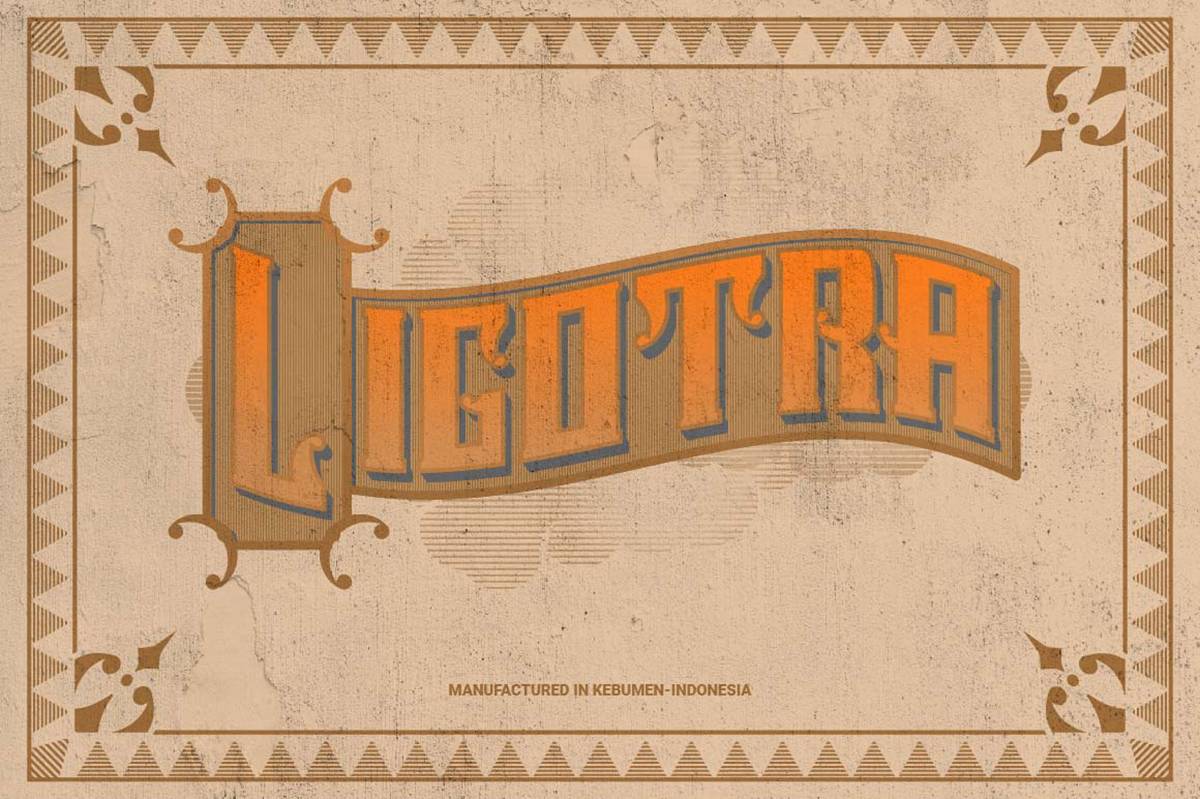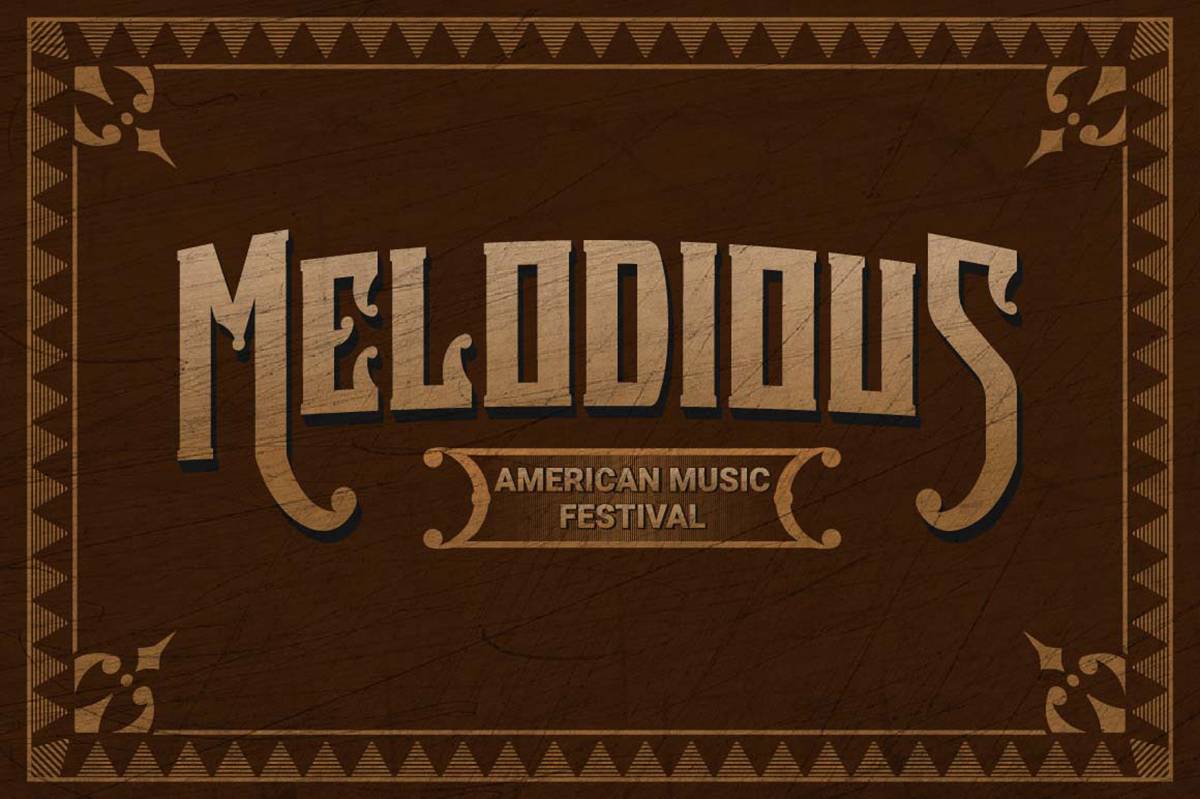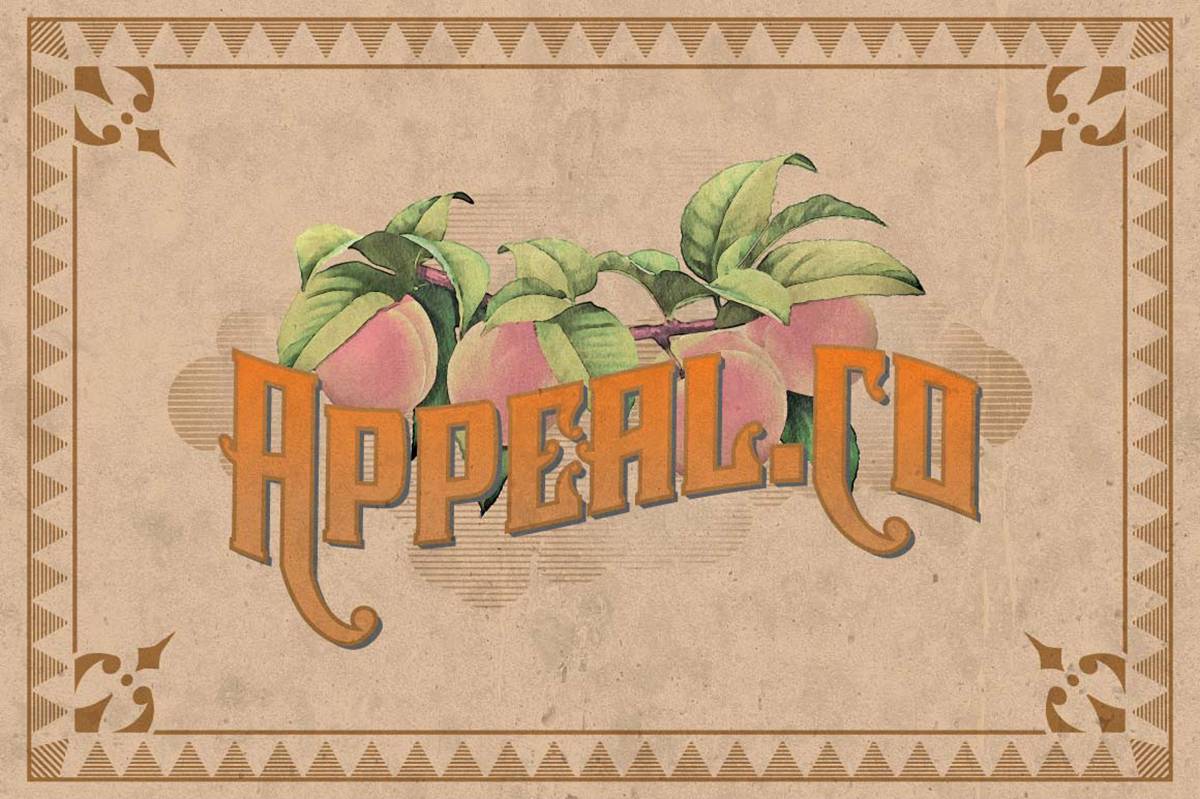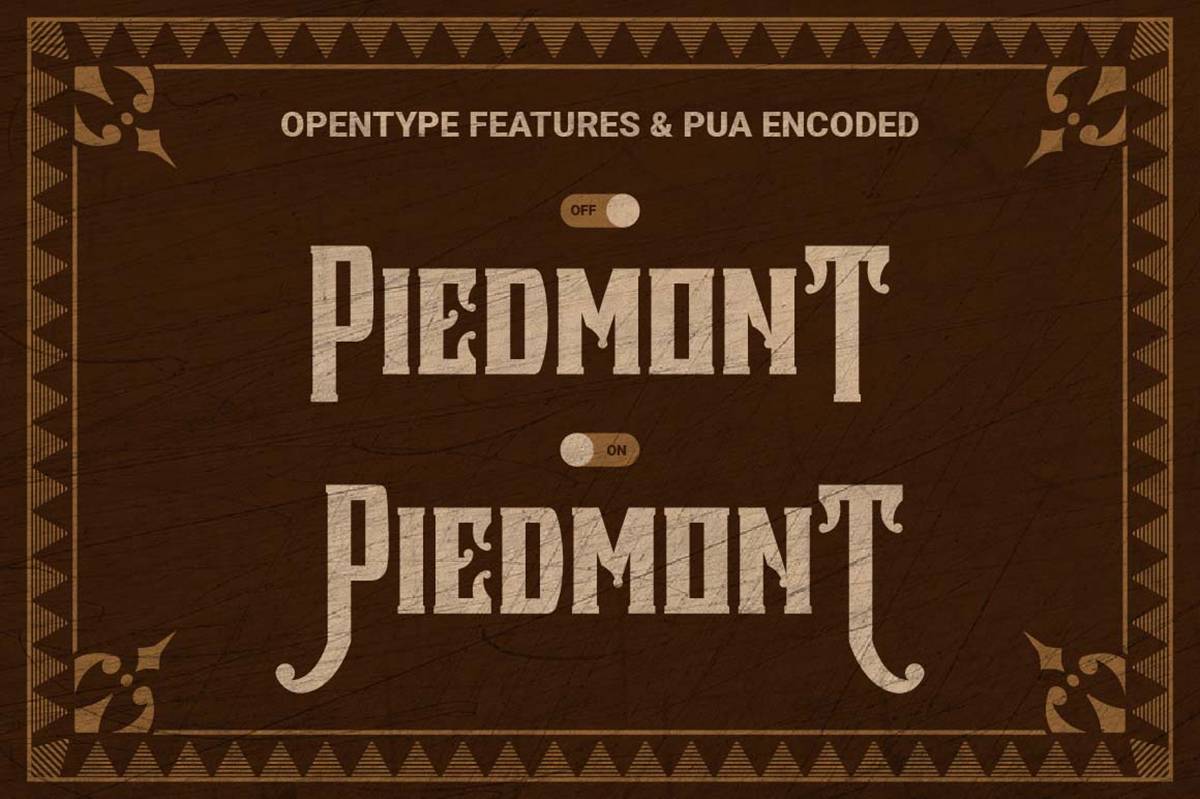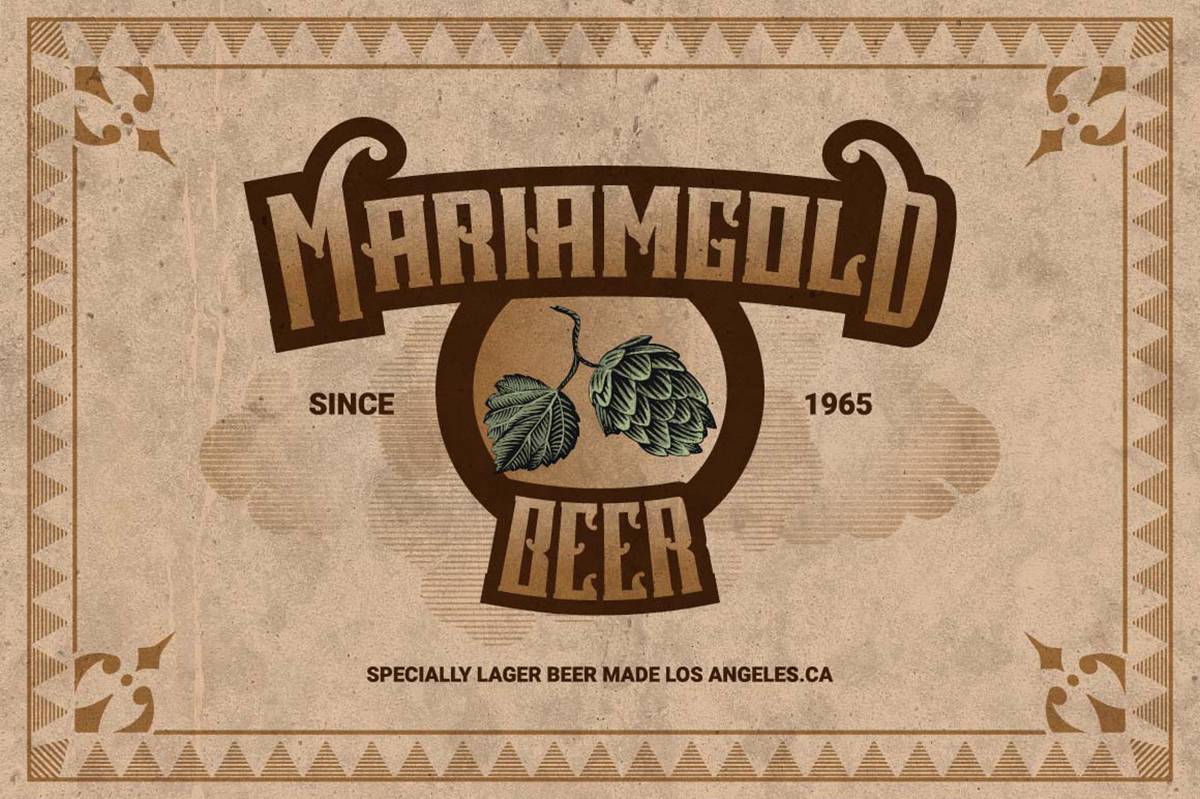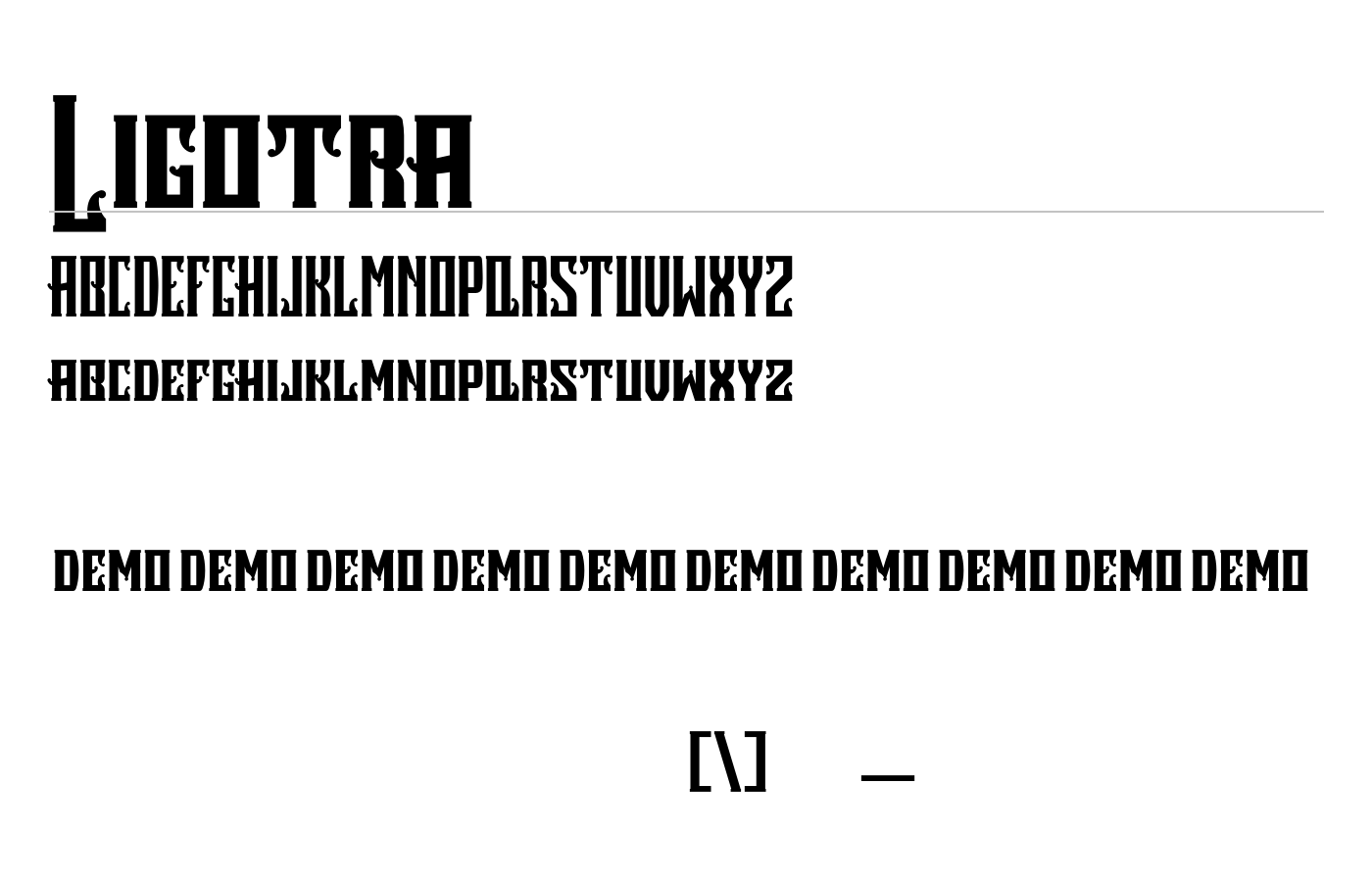
Ligotra is a bold, condensed serif font with a strong vintage western character, featuring high contrast between thick and thin strokes and sharp, angular serifs with unique decorative elements. Its tall, narrow letterforms and distinctive shapes give it a bold, dramatic, and somewhat rustic personality, making it ideal for logos, posters, and branding that require a striking, old-fashioned yet stylish impact. This font works best in headlines or display settings where attention-grabbing and personality are key.
Ligotra Font
About Ligotra Font
| Font family | Ligotra Font |
| Designer | Prio Nurokhim Aji |